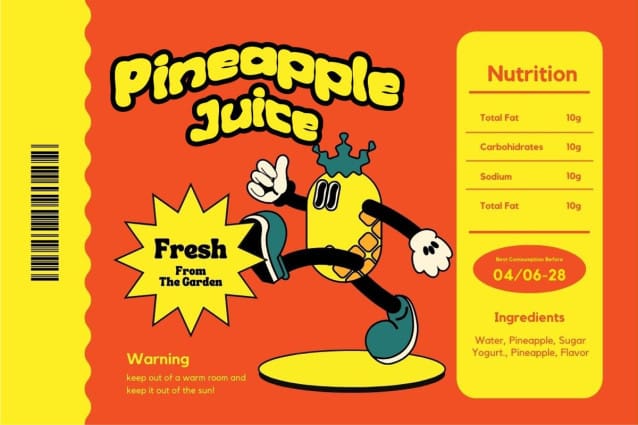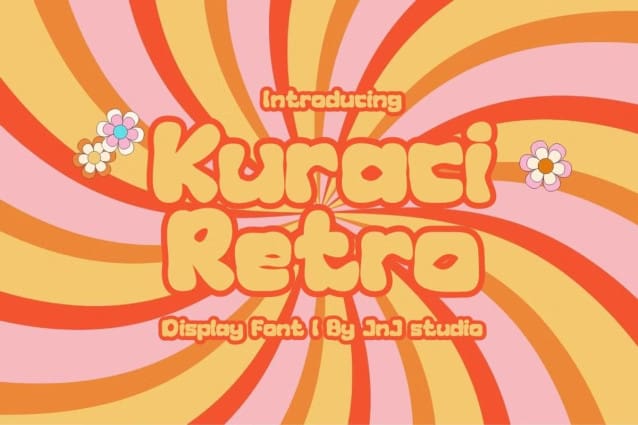
Kuraci Retro Font
Kuraci Retro Font is a stylish typeface inspired by the vintage aesthetics of the 70s and 80s. This font features bold, rounded letterforms with a subtle geometric twist, embodying the essence of retro design. The unique curves and playful shapes give “Kuraci Retro” a distinct charm, making it perfect for posters, branding, and design projects that seek to capture the nostalgia of bygone eras.
With a harmonious blend of modern readability and old-school flair, “Kuraci Retro” brings a lively, vibrant touch to any creative work. It’s an ideal choice for those looking to evoke a sense of warmth and timeless elegance in their designs.